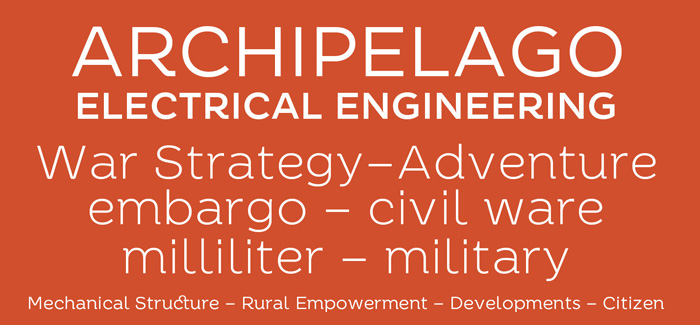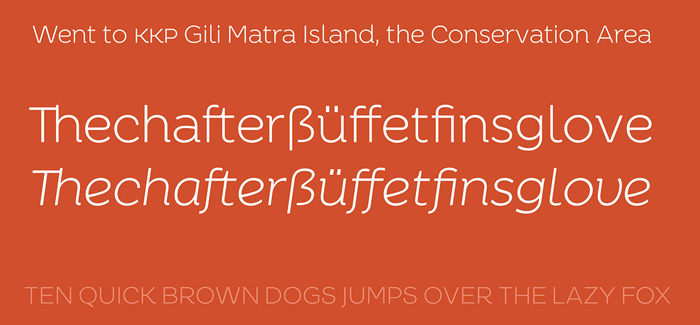
Timesquare font
Timesquare font by Campotype is original sans-serif font family presented in 6 styles spread in 3 weights with corresponding italic. Starting from Thin to Bold, Timesquare font shows very elegant letterforms, pure well-balanced geometry and contrast and increased height of lowercase letters – all these effectively working for its excellent readability when used for screen or print graphics. Timesquare has very stylish humanistic terminals that significantly improve its overall quality and uniqueness. Equipped with alternates, ligatures and large array of diacritics, it is a perfect choice for editorial design, stationary, annual reports, leaflets and brochures.